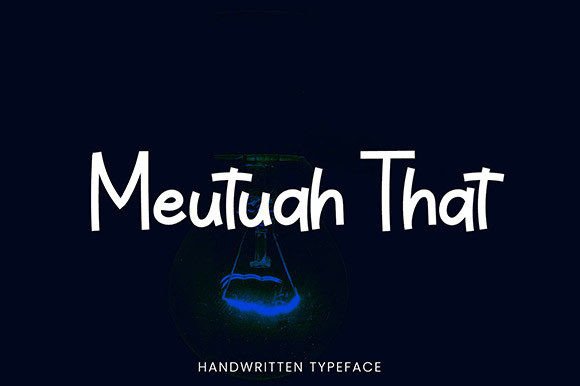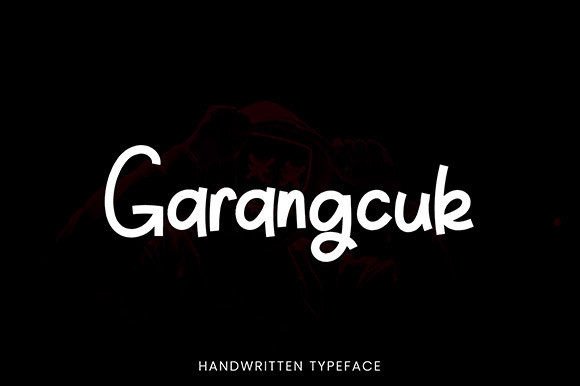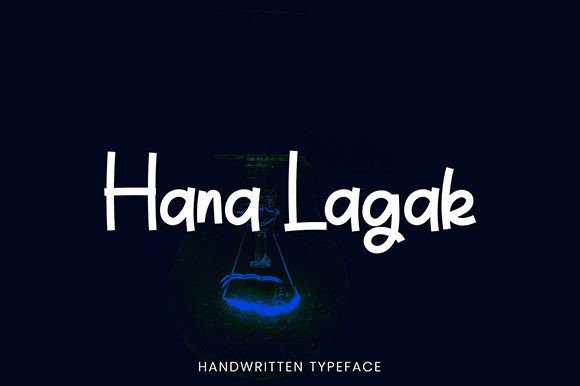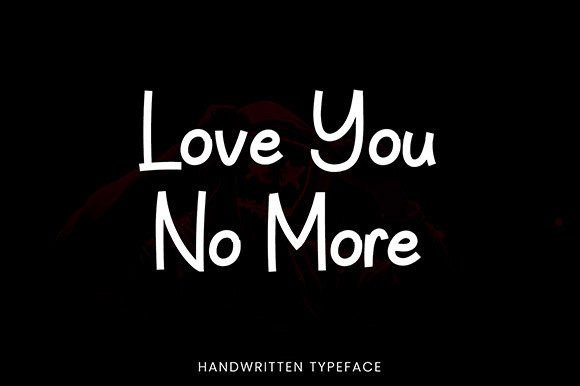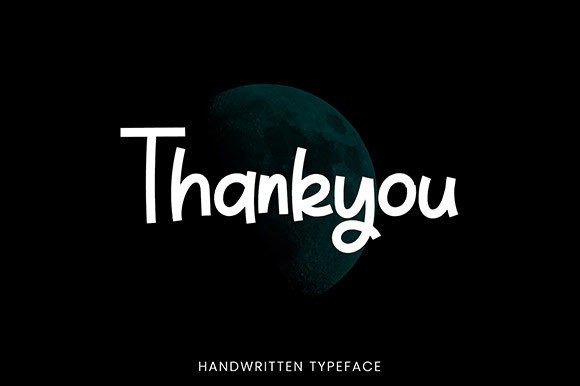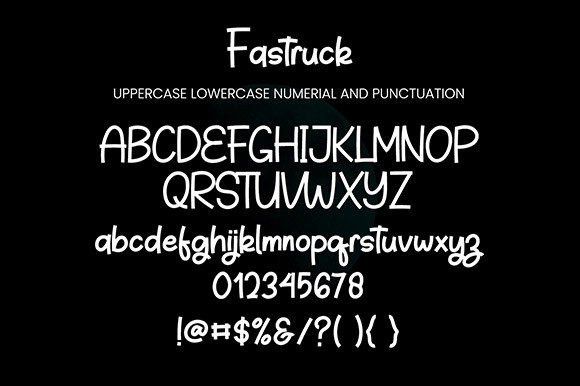
Introduction to Fastruck Font
Have you ever stared at a blank page, struggling to find the perfect font to bring your creative project to life? We’ve all been there – the cursor blinks, the mind goes blank, and the clock ticks away. But what if you could unlock a font that not only saves you time but also elevates your design to the next level?
Enter the Fastruck Font, a natural font with a fresh new style that’s designed to make your life easier. With its versatility and high quality, this font is the perfect design resource for any project, from quotes and logos to blog headers and posters. Whether you’re a seasoned designer or just starting out, the Fastruck Font is a valuable addition to your toolkit.
Key Features of Fastruck Font
- High-quality font designed for creative projects, ideal for use in graphic design, digital art, and more.
- Designed with a modern and sleek aesthetic, making it perfect for a wide range of creative projects and applications.
Honest Review: Fastruck Font
As a designer, I’m always on the lookout for high-quality design resources to enhance my creative projects. Recently, I came across the Fastruck Font, and I must say, it’s a game-changer. ✨
One of the things that stands out about the Fastruck Font is its sleek, modern design. It’s perfect for creating eye-catching headings and titles for any project. I love how versatile it is and can be easily paired with a transparent background to create a stunning visual effect.
Here are some of the features that make the Fastruck Font a top-notch design resource:
- Works well in both digital and print media
- Easy to customize and modify to fit your design needs
That being said, I do have a few minor quibbles with the Fastruck Font. ⚠️
- It may not be suitable for very small text sizes, as it can become pixelated
- It’s not available in as many weights as some other popular fonts
Overall, I’m really impressed with the Fastruck Font and would highly recommend it to any designer looking for a high-quality, free design resource. It’s a great addition to any design toolkit and is sure to help take your creative projects to the next level.
Fastruck Font
Tips for Getting the Most Out of Fastruck Font
Experiment with different font sizes and styles to create a visually appealing design. Use the Fastruck Font with a transparent background for a modern and sleek look.
The Fastruck Font is ideal for creating eye-catching headings, titles, and logos. It’s also suitable for use in brochures, flyers, and social media graphics.
Is the Fastruck Font a high-quality design resource?
Yes, the Fastruck Font is a high-quality design resource, carefully crafted to provide a professional and sophisticated look for your design projects. With its clean lines and modern aesthetic, the Fastruck Font is an excellent choice for designers looking to add a touch of elegance to their work.